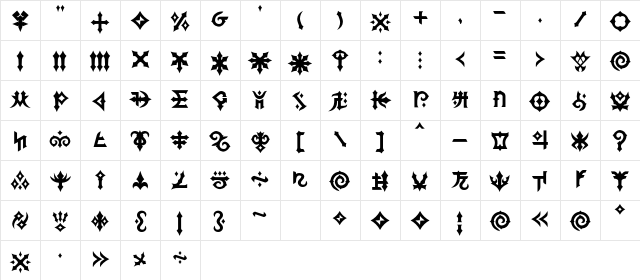
KHScala Regular
Designer: Televo
Design Context for KHScala
KHScala is a composed and adaptable typeface that performs quietly and consistently across a wide range of design contexts.